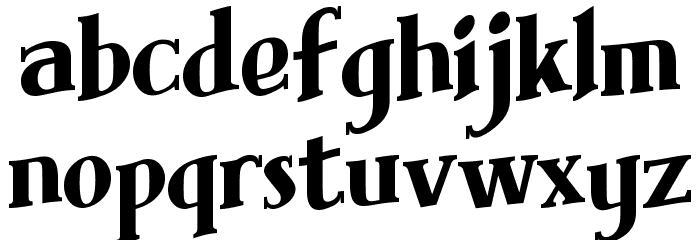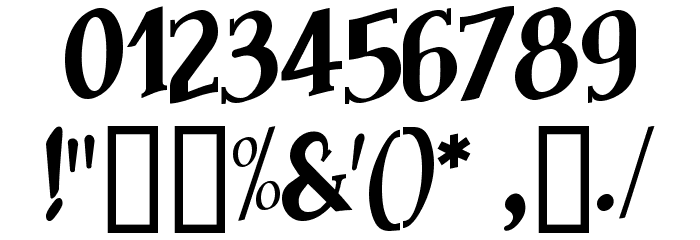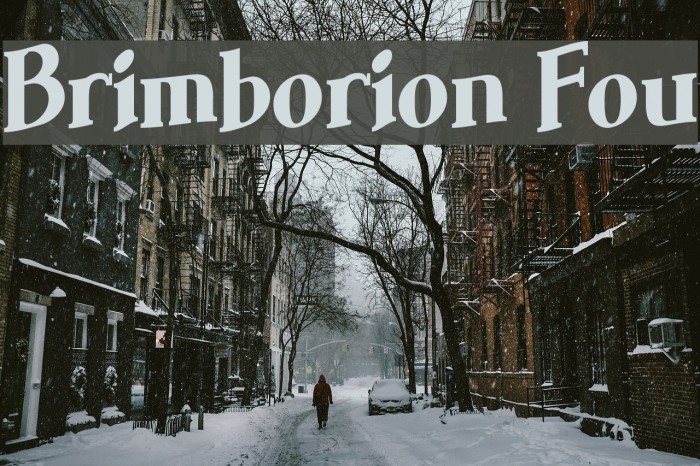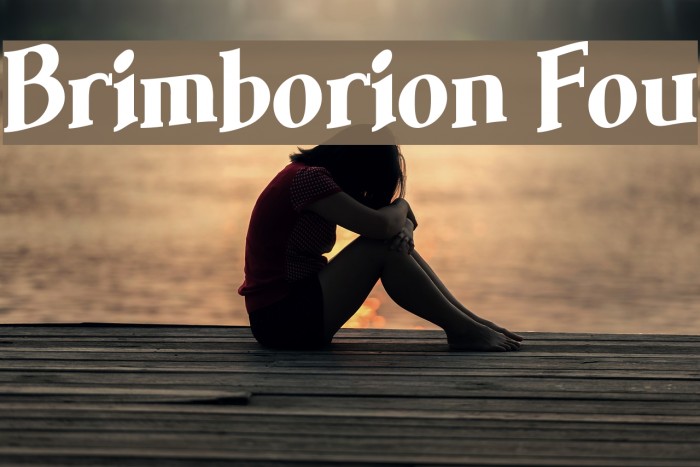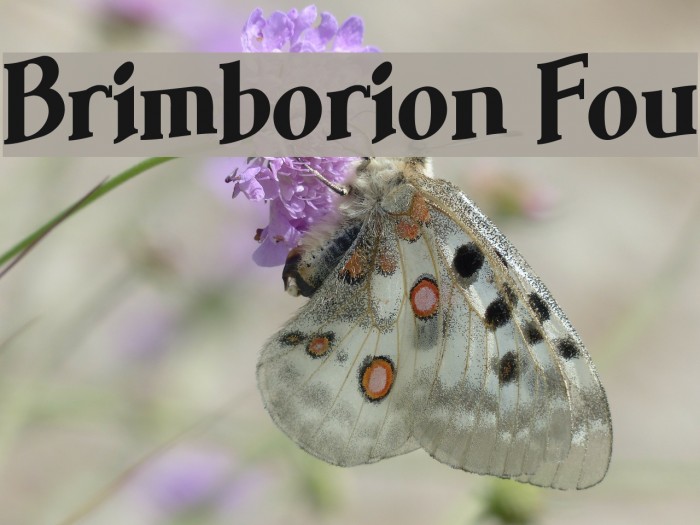
Brimborion Fou Font
This font features a distinctive and bold design with a classic serif style. The characters exhibit a strong presence with slightly exaggerated serifs and a moderate contrast between thick and thin strokes. The uppercase letters are particularly striking, with a traditional yet playful flair, while the lowercase letters maintain readability with a touch of elegance. The numerals are robust and consistent with the overall style, making them suitable for various applications. Special characters are well-integrated, adding to the font's versatility.
A bold, classic serif font with playful yet elegant characteristics.
- Proposed Projects: Ideal for branding, editorial design, book covers, and poster headlines.
- Overall Style: Classic